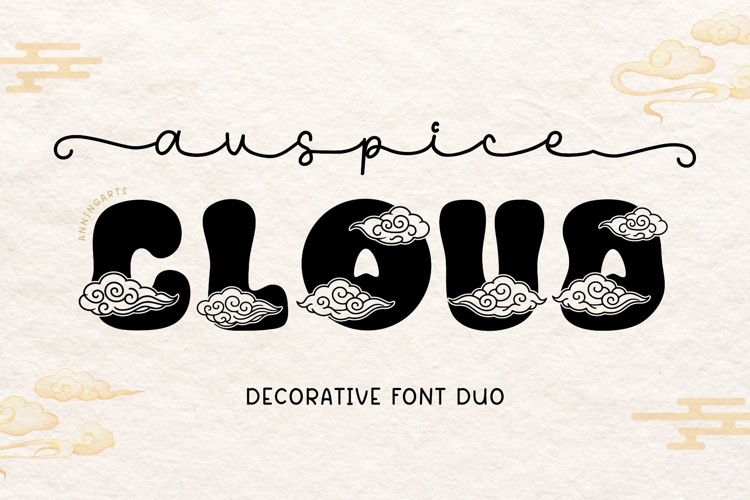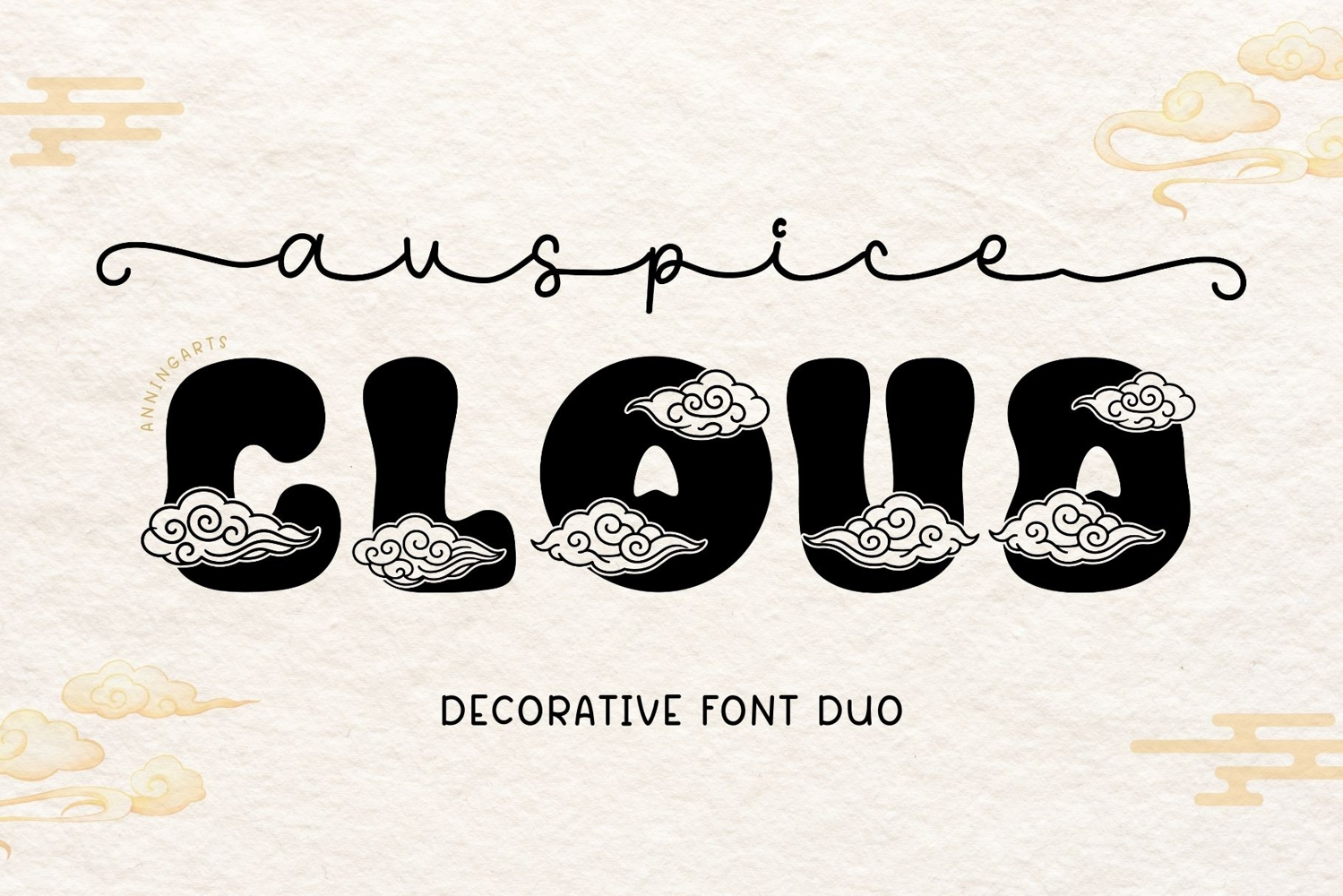
Create meaningful and eye-catching designs with Auspice Cloud Font Duo, a decorative font set inspired by Chinese auspicious cloud motifs and traditional Eastern aesthetics.
Perfectly paired together, these fonts are ideal for Chinese New Year designs, Asian-inspired branding, festive quotes, packaging, greeting cards, apparel, tote bags, mugs, posters, and cultural projects.
This font duo blends tradition with a modern handcrafted feel, making your designs stand out while keeping a warm and auspicious atmosphere.